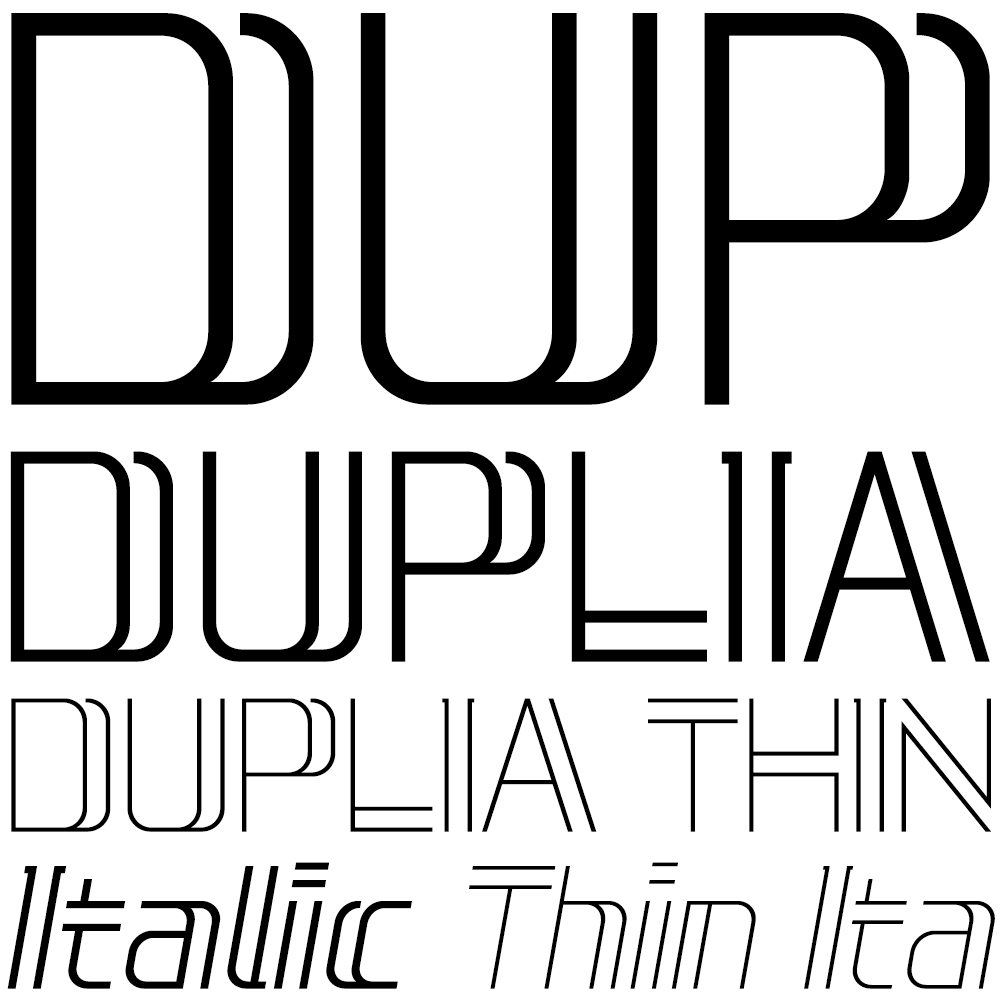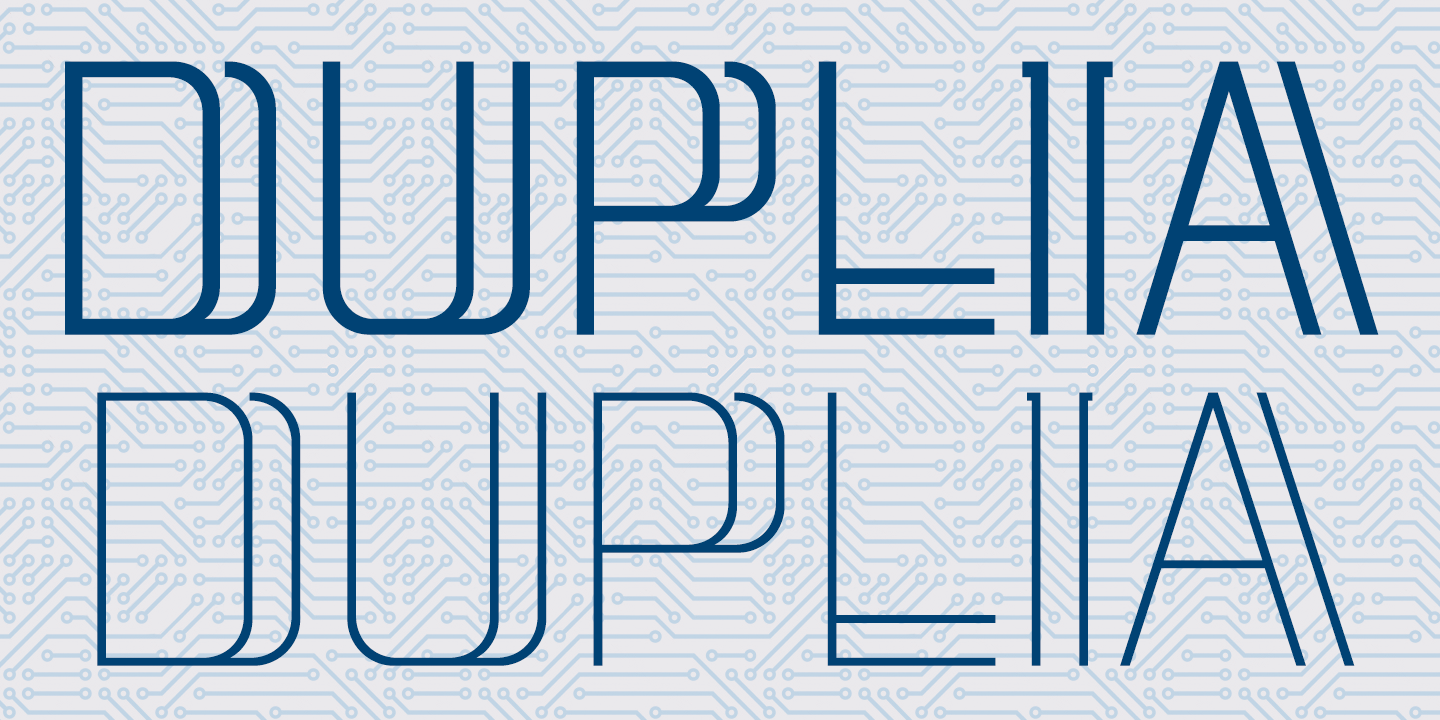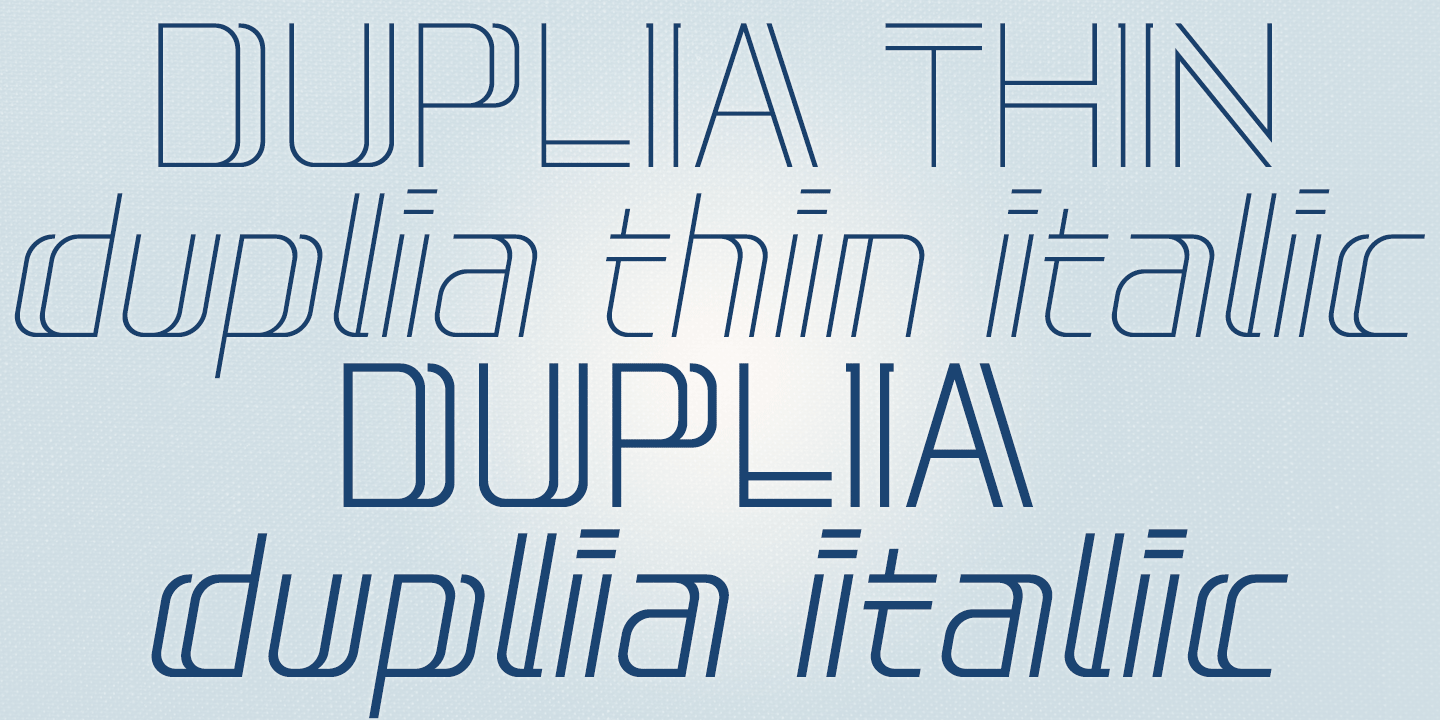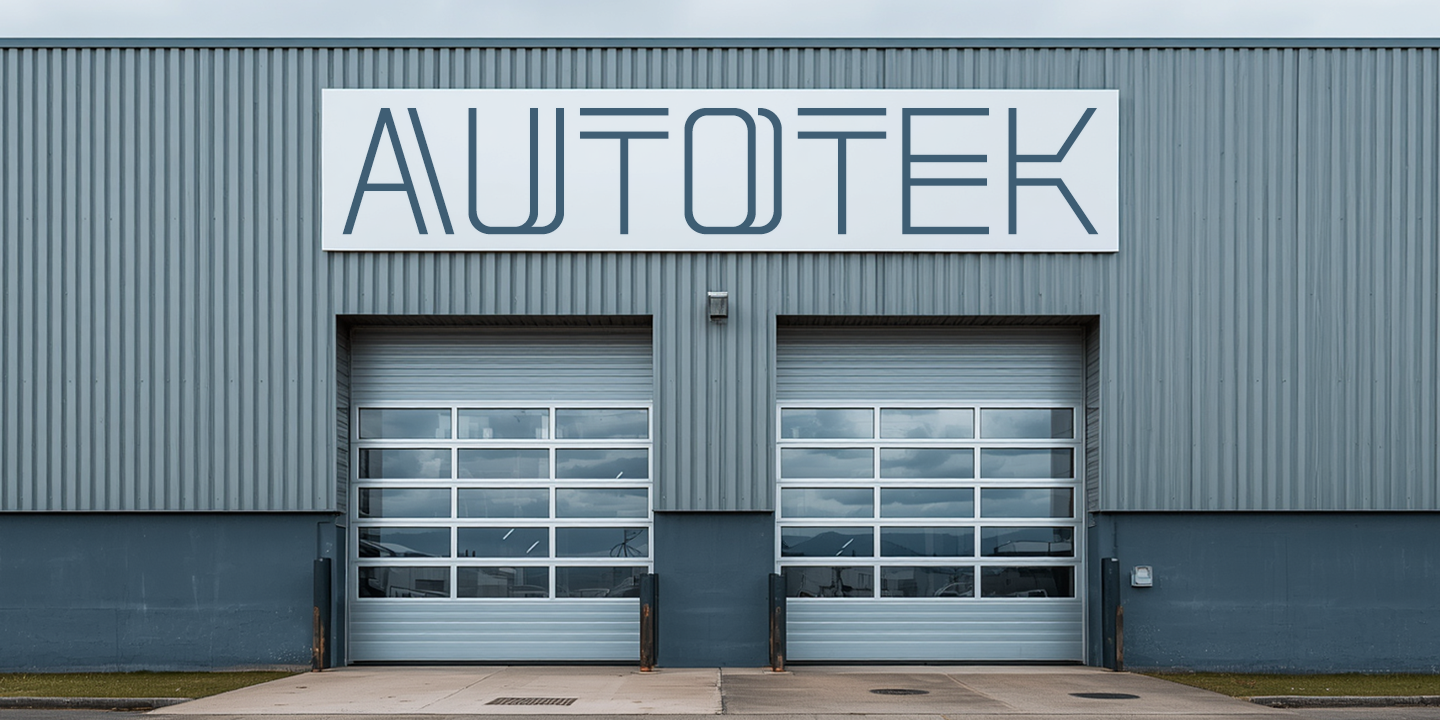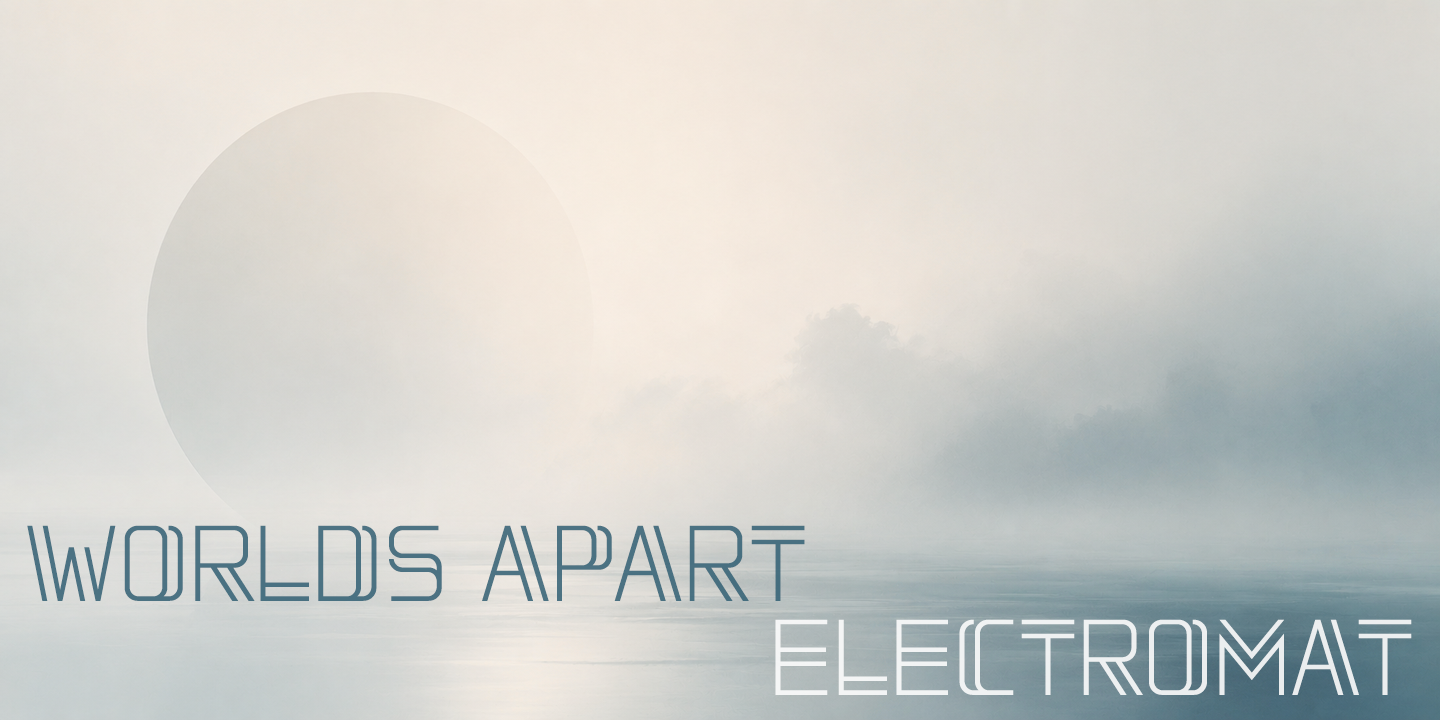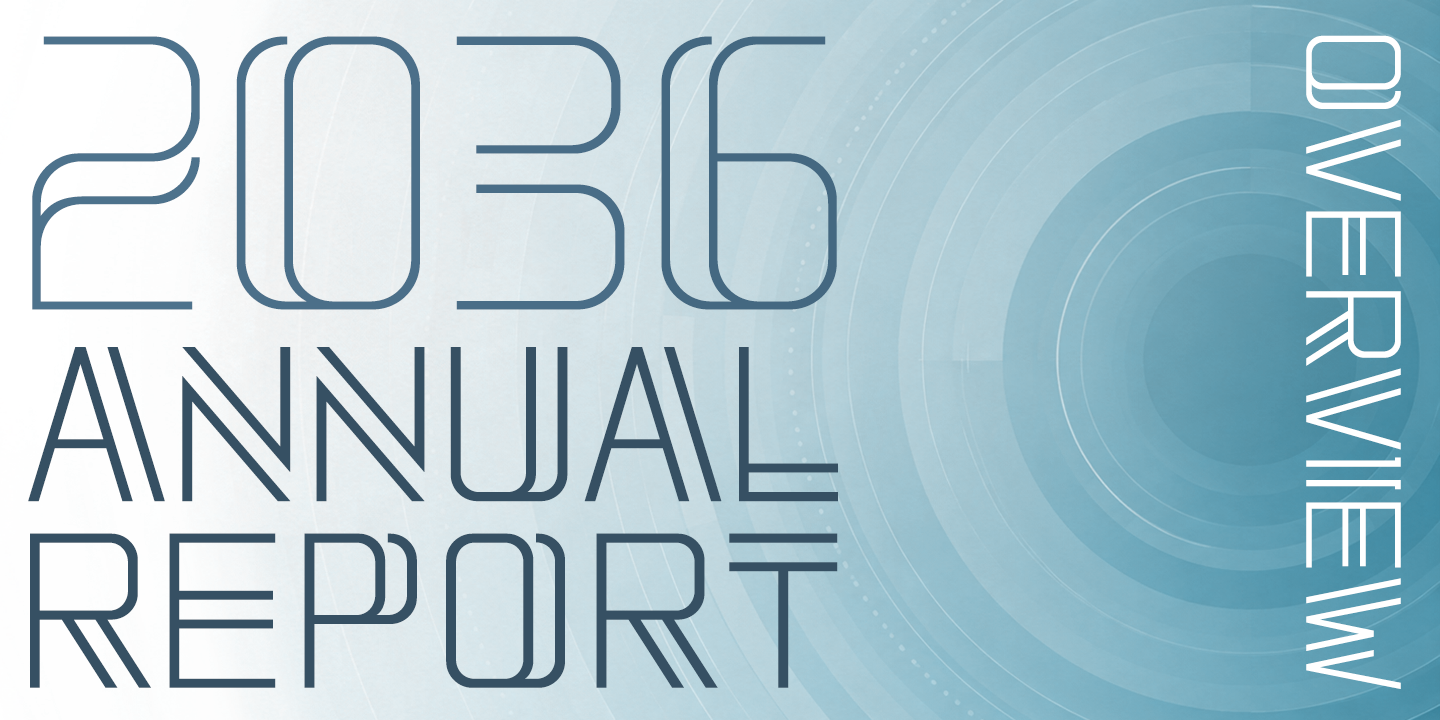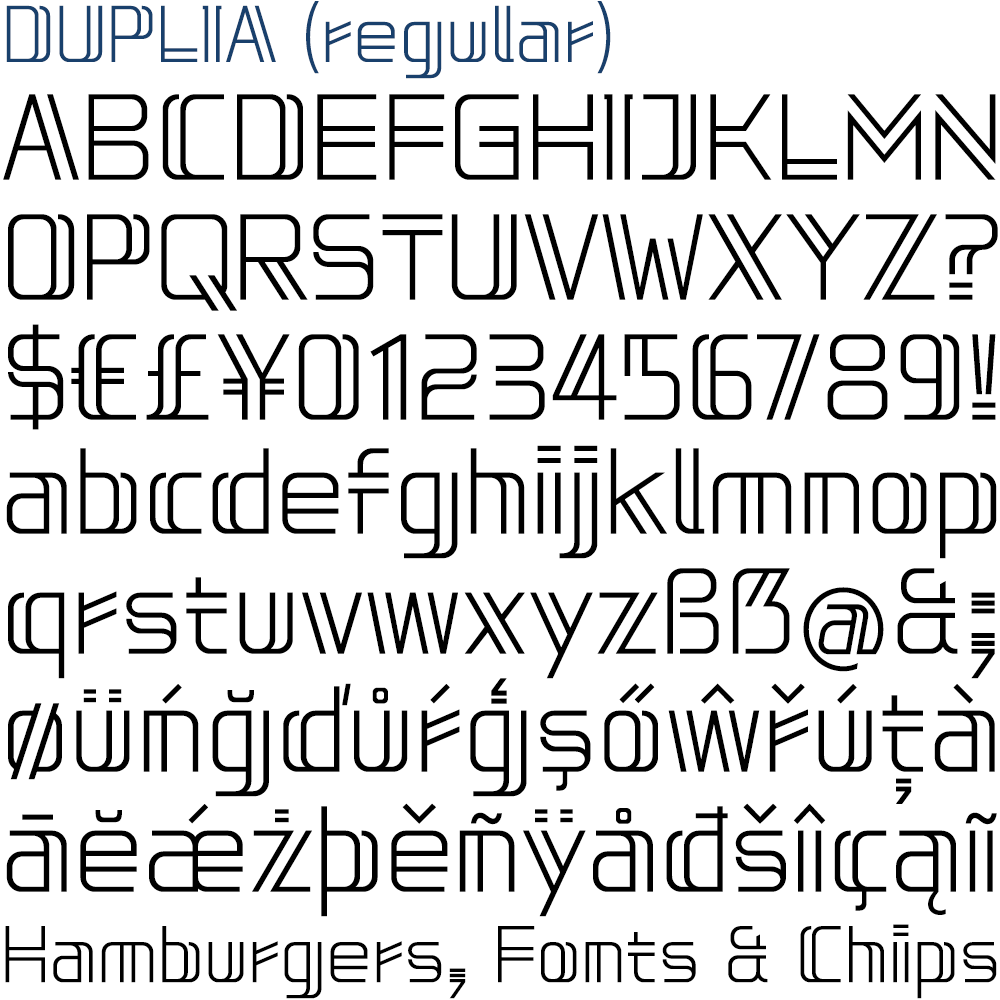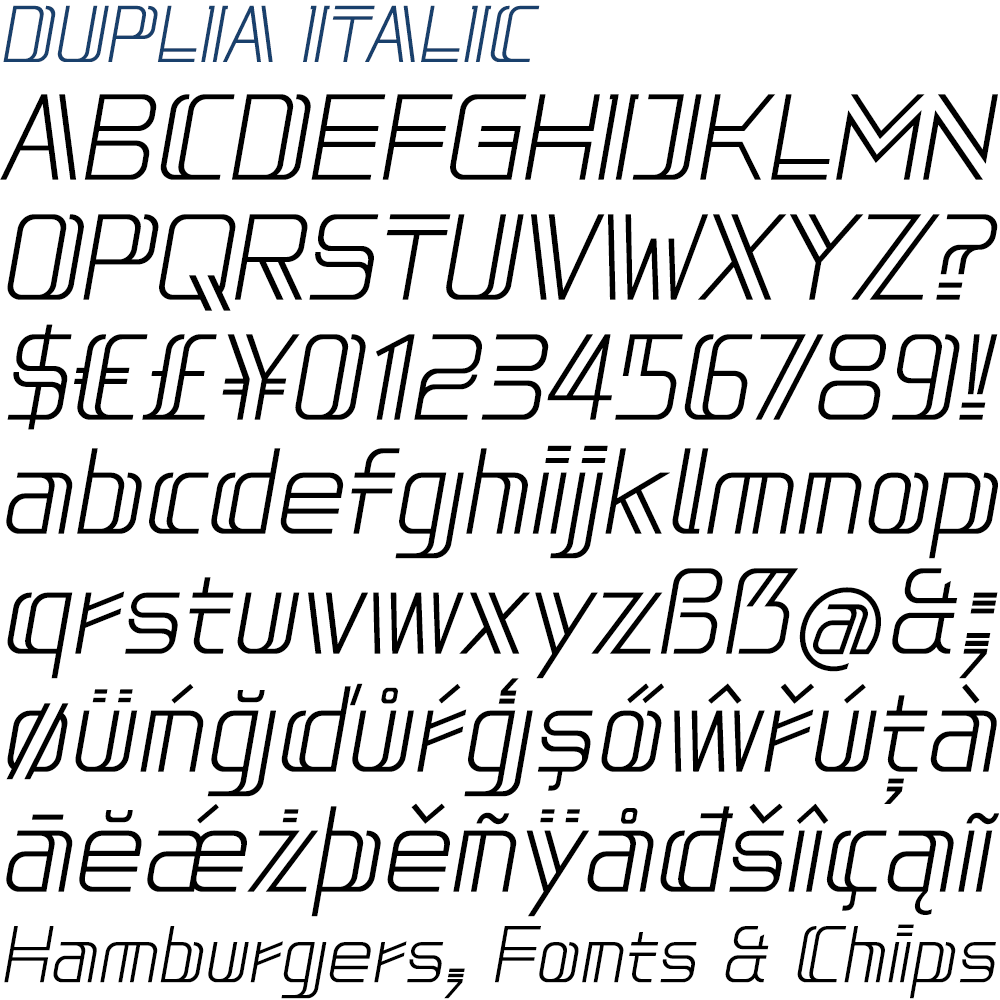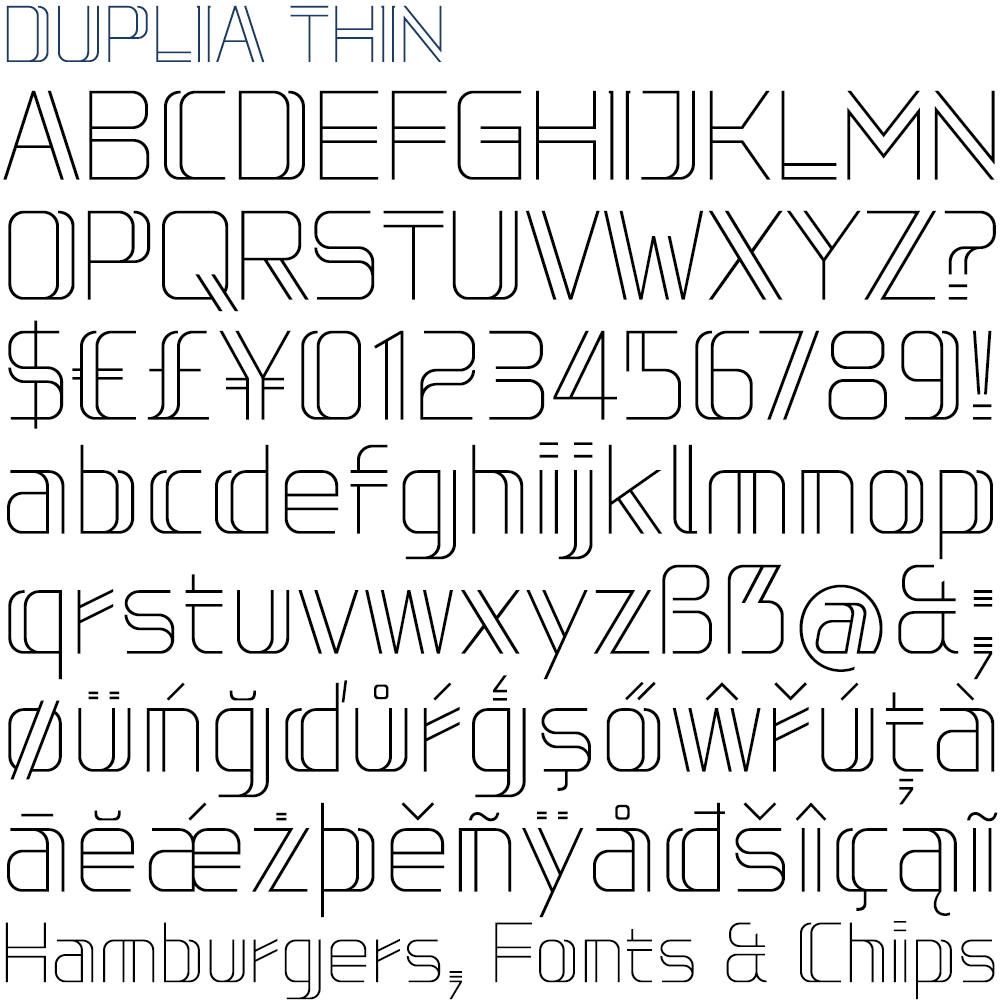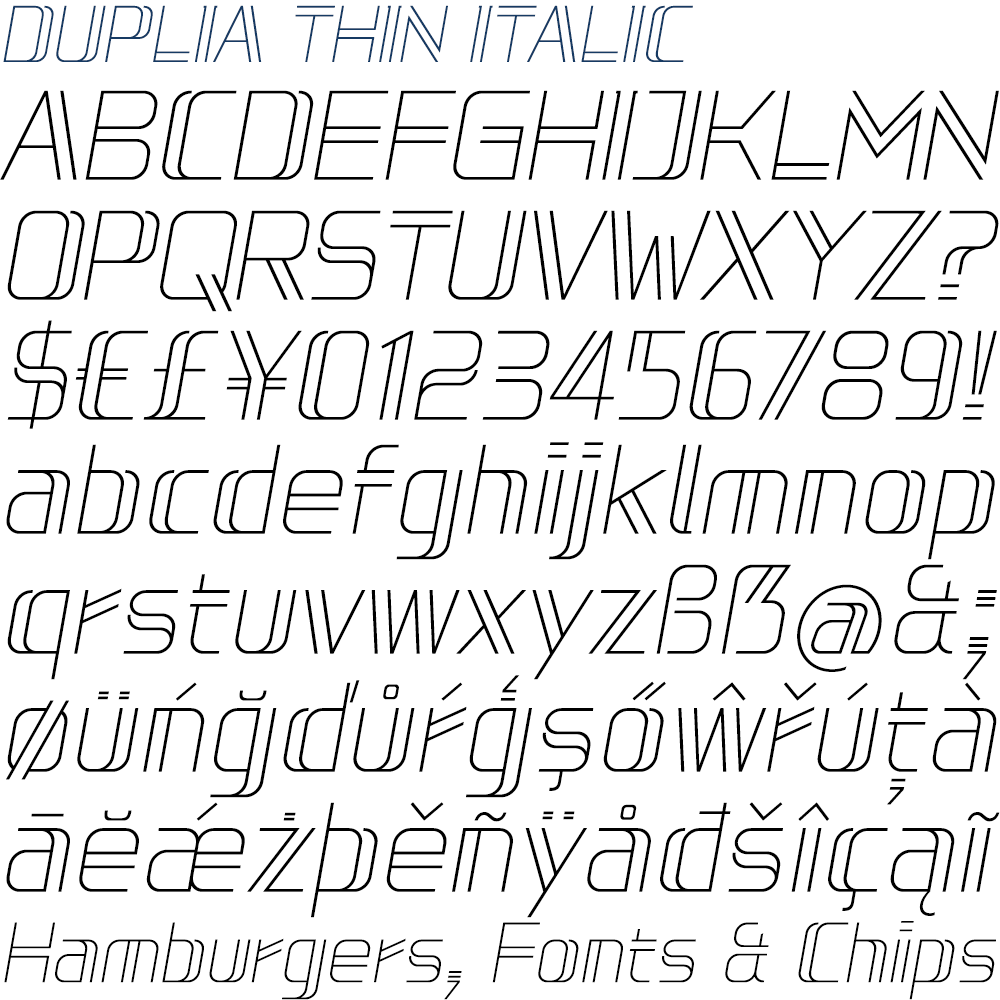
Duplia
Duplia is a light, square sans family that celebrates the delicate strength of thin, monoweight strokes. A distinctive part of each glyph is repeated to produce an eye-catching echo that supplements the fine line to improve legibility and bestow personality. The fonts possess an open, airy quality that is best suited to contemporary layouts that are adventurous and spacious. Among the uses envisaged for Duplia are: branding, titles, headines, posters, banners, captions, packaging, corporate identities, sports, gaming and tech.
The family consists of Duplia (a light regular), Duplia Thin, and their corresponding, optically-corrected italics (obliques). All four fonts are included in the licensed download.